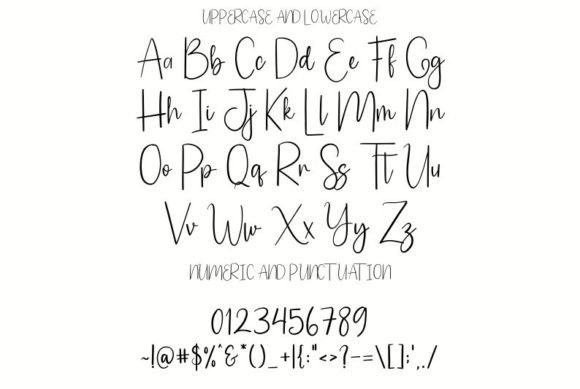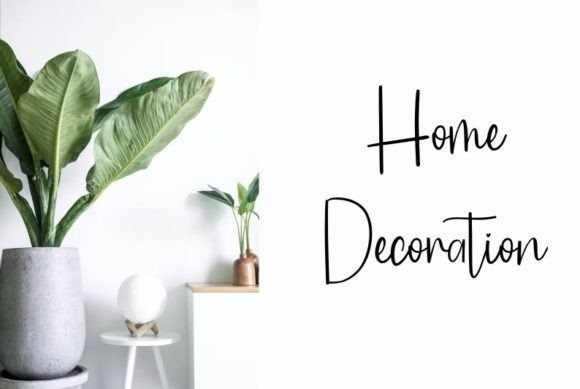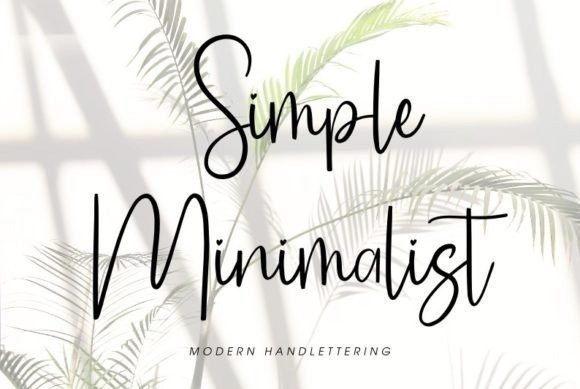
Simple Minimalist Font
Simple Minimalist Script Font a Modern Calligraphy Font. Whether you’re using it for crafts, digital design, presentations, or making greeting cards, this font has the potential to become your favorite go-to font, no matter the occasion!